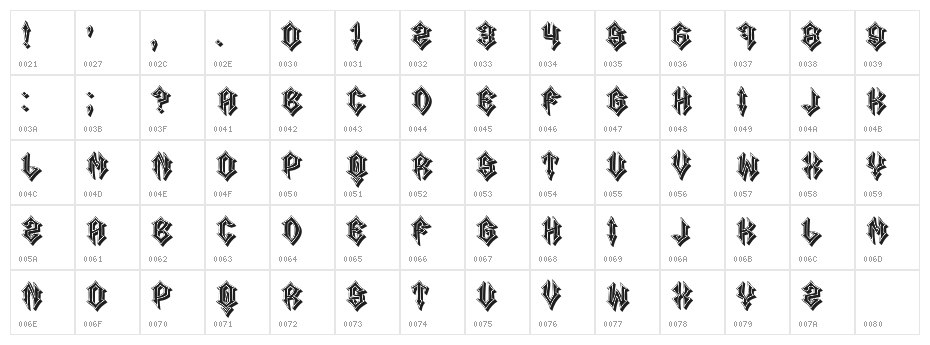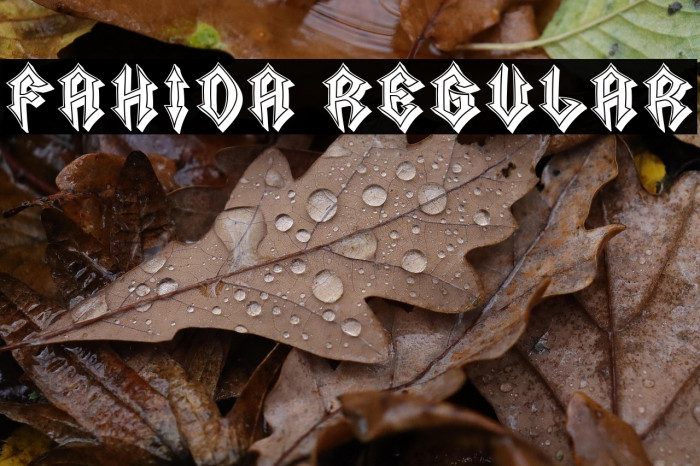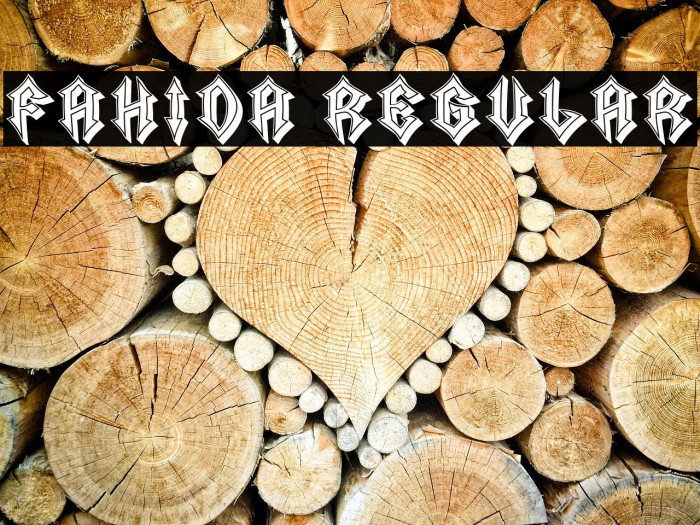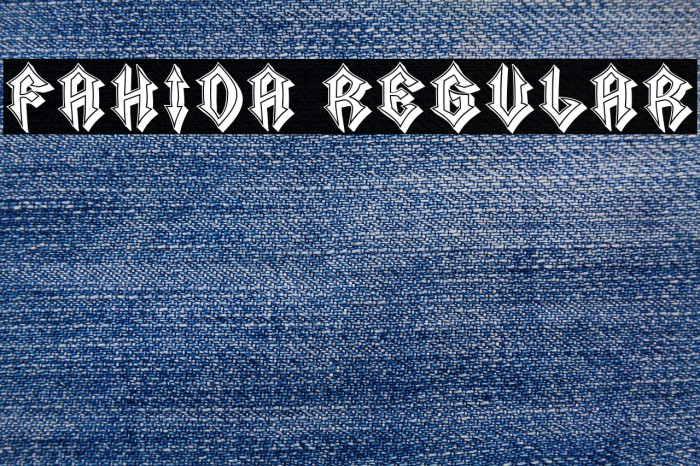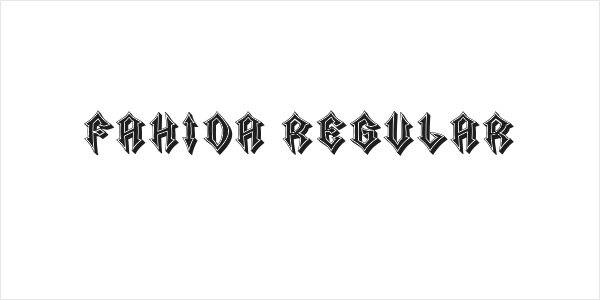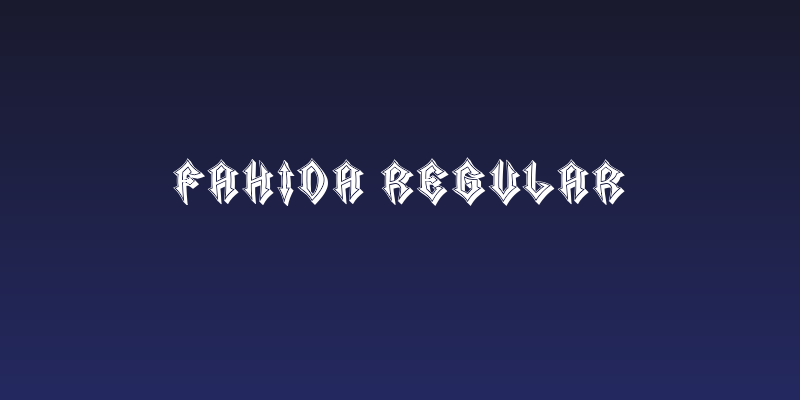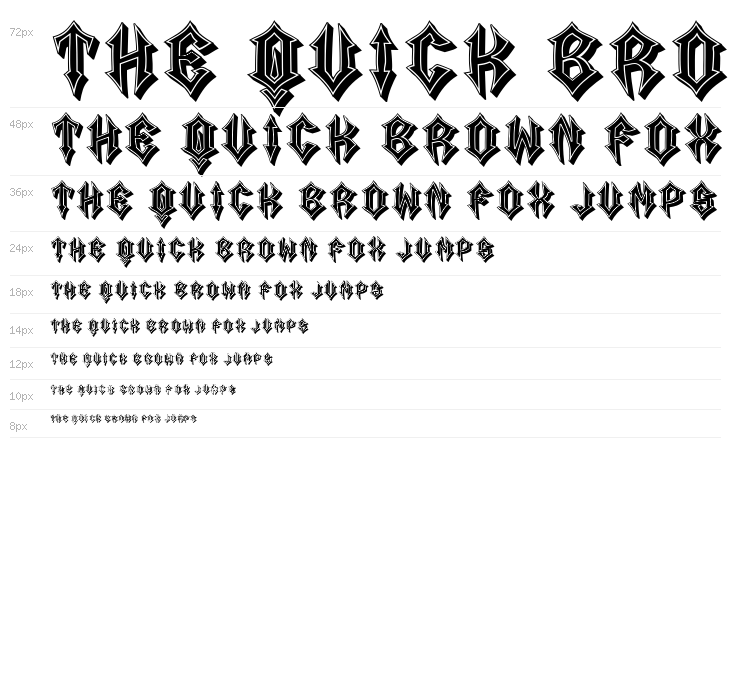
Fahida Regular Font
Fahida Regular Description
This font features a bold, Gothic-inspired design with sharp, angular edges and intricate detailing. Each character is outlined, creating a striking contrast between the bold strokes and the inner spaces. The uppercase and lowercase letters maintain a consistent style, emphasizing a medieval aesthetic. The numbers and special characters are equally ornate, fitting seamlessly with the overall design. This font's dramatic appearance makes it ideal for projects that require a strong visual impact.
| Use Case | Logos, Headlines, Posters |
| Proposed Projects | Perfect for tattoo designs, band logos, posters, and any project needing a dramatic, medieval aesthetic. |